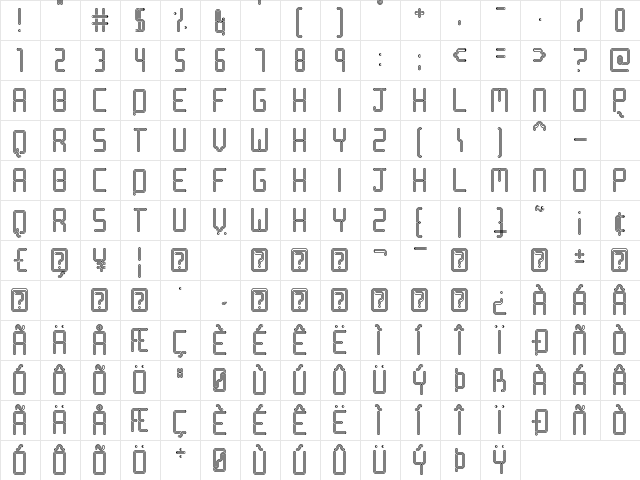
Racetrack Stencil Regular
Design Context for Racetrack Stencil Typeface
Racetrack Stencil borrows the utilitarian aesthetic of stencil lettering, with its characteristic cutaways and no-frills construction lending an industrial edge.
Ideal for industrial branding, streetwear, military-adjacent aesthetics, and urban signage projects.
Pro Tip: Pair Racetrack Stencil with raw, utilitarian design elements — exposed concrete textures, flat colour, and minimal ornamentation suit it well.